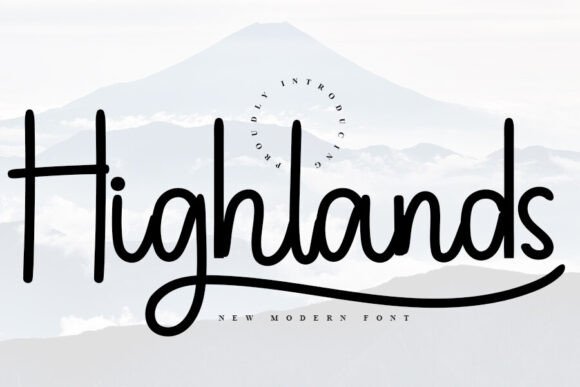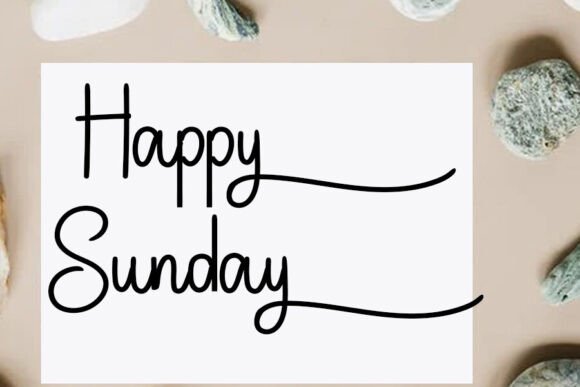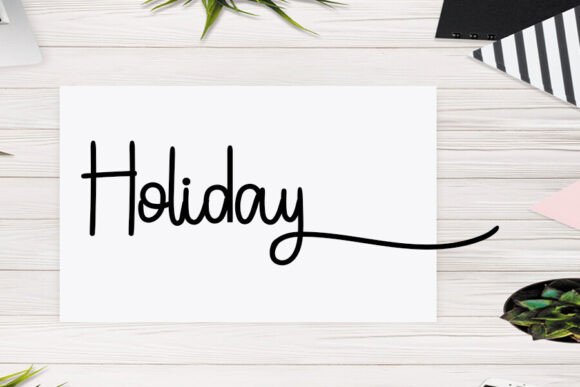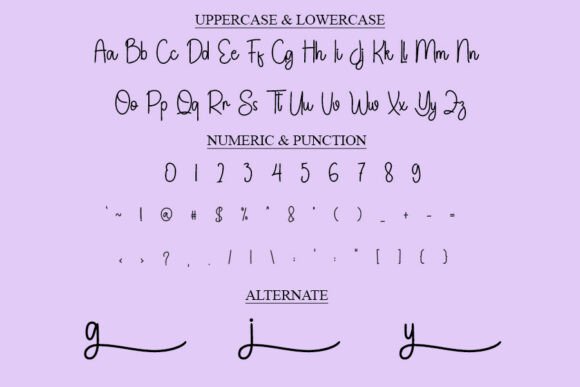
Highlands Font: Elegant Script for Wedding Invitations & Modern Branding
About the Highlands Font
Get ready to be inspired by Highlands Font, a fresh and dynamic typeface for modern creators. Introducing Highlands – an elegant and modern font. Its dynamic characteristics make it a perfect fit for YouTube banners and Cover Logo Mockups. Adorn your wedding invitations or ID cards with a touch of Highlands to add a unique flare. With its superb readability, it’s also a great candidate for flyers and craft projects. The simplistic yet distinct nature of the Highlands font not only elevates your designs recognizably but can also be a driving factor in the prosperous story of your business. Highlands is not just a font; it’s a perfect blend of style and functionality. A font so unique, it creates a statement of its own!
Highlands Font Usage Examples
Highlands Font Example